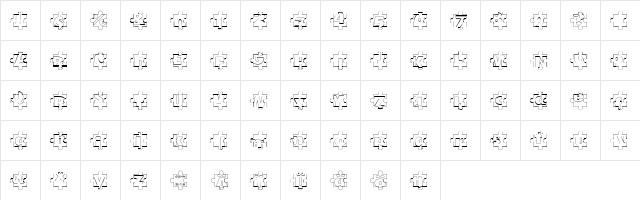
Puzzle Pieces Outlined Regular
Design Context for Puzzle Pieces Outlined Typeface
Puzzle Pieces Outlined brings ornamental detail and strong personality to headlines and identities, where visual impact matters more than quiet functionality.
Font Pairing: Pair with a clean neutral sans-serif for body copy to let Puzzle Pieces Outlined's character lead without overwhelming the composition.
Pro Tip: Treat Puzzle Pieces Outlined as the centrepiece of your typographic hierarchy. One strong heading set in a decorative face can carry an entire layout.